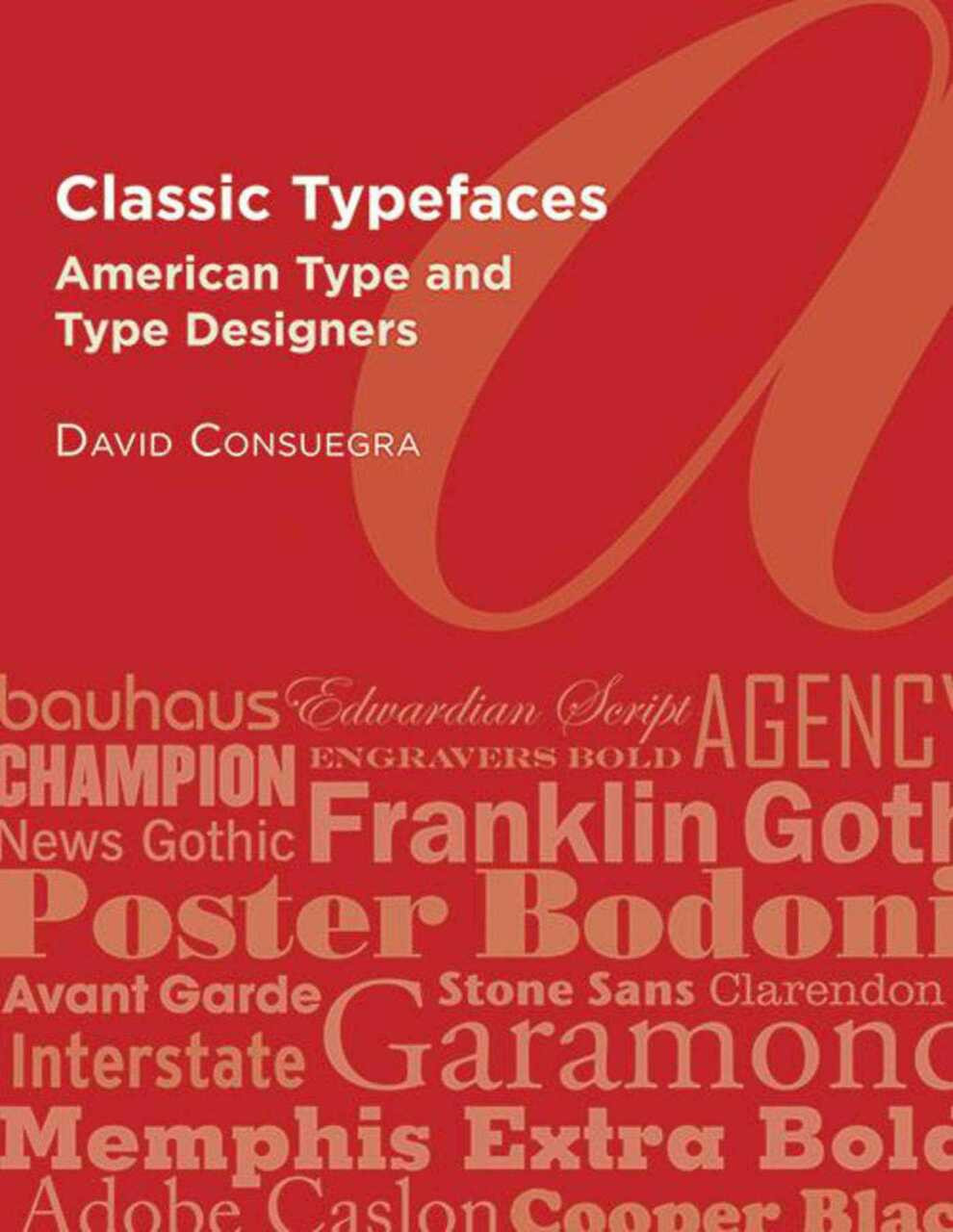
Classic Typefaces (American Type and Type Designers)
David Consuegra
Graphic designers will enrich their understanding of American type design and type designers with this unique and extensive reference. The fascinating history of type in America is chronicled through the typefaces and biographies of sixty-two of the most influential type designers, including Linn Boyd Benton, Morris Fuller Benton, and Darius Wells, and through the description and history of nine American type foundries. Complete with samples of 334 different typefaces, and 700 black-and-white illustrations, this eye-popping reference reveals the expansive contribution America has made to the world of type design.